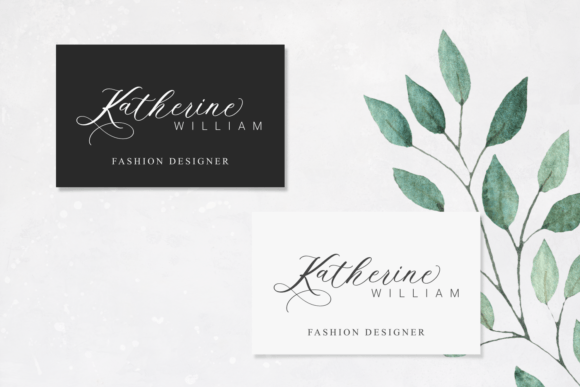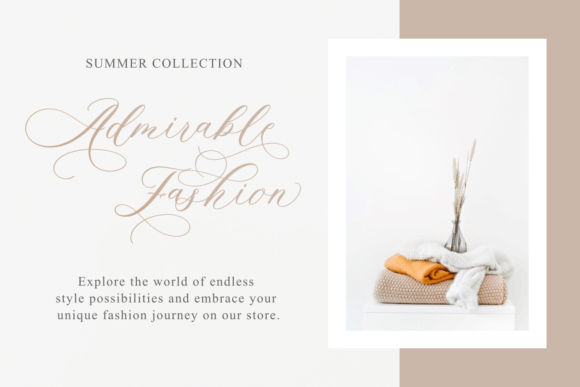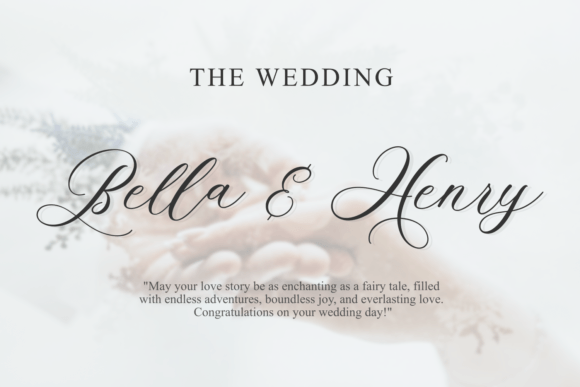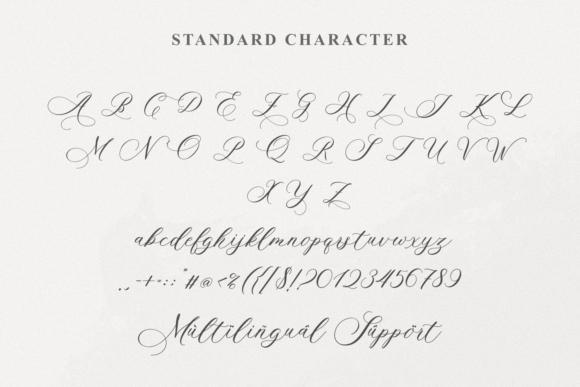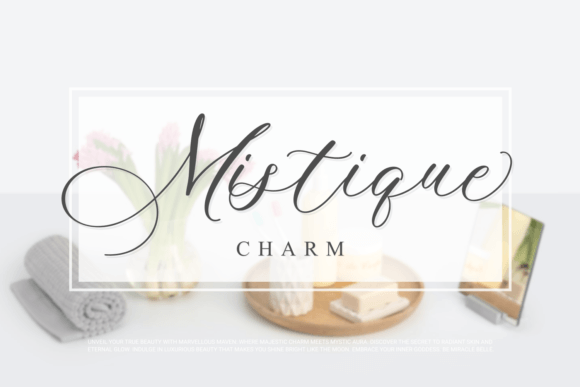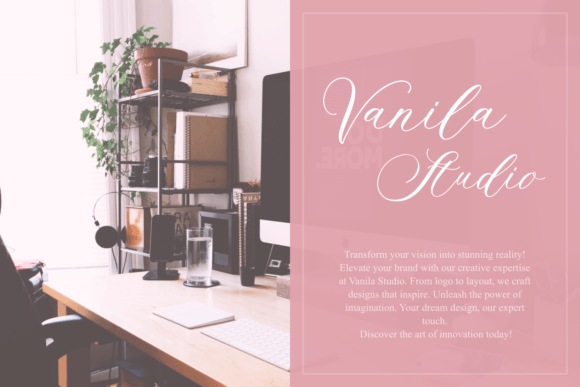
Discover the Elegance of Farah Font: A Perfect Blend of Simplicity and Sophistication
In the world of typography, fonts play a crucial role in conveying messages, expressing emotions, and creating a lasting impression. For designers and crafters, finding the right font can be a daunting task, especially when it comes to balancing elegance and simplicity. This is where Farah Font comes into play, a handcrafted gem that combines smooth, curved lines with a simple yet elegant appearance, making it perfect for various design purposes.
The Beauty of Simplicity
Farah Font is a masterclass in minimalism, radiating beauty in its purity without excessive ornaments. The font’s clean and smooth lines make it easy to read, while its elegant curves add a touch of sophistication. This subtle balance of simplicity and elegance makes Farah Font an excellent choice for designers and crafters looking for a font that can convey their message with clarity and style.
One of the standout features of Farah Font is its versatility. Whether you’re designing a prominent title, a message that requires a gentle touch, or a logo that needs to make a statement, Farah Font is up to the task. Its adaptability makes it suitable for a wide range of design purposes, from branding and advertising to packaging and digital media.
Handcrafted with Love
Farah Font is a handcrafted font, which means that every curve, every line, and every detail has been carefully crafted with love and attention. This level of care and dedication is evident in the font’s smooth, flowing lines and elegant appearance. When you use Farah Font, you’re not just using a font – you’re adding a personal touch to your design.
For designers and crafters, finding a font that can elevate their work without overpowering it can be a challenge. Farah Font is the perfect solution. Its elegant simplicity makes it easy to pair with other design elements, while its unique character ensures that your design stands out from the crowd.
Key Features of Farah Font
- Elegant Simplicity: Farah Font combines smooth, curved lines with a simple yet elegant appearance.
- Easy to Read: The font’s clean lines and flowing curves make it easy to read, even at small sizes.
- Versatile: Farah Font is suitable for a wide range of design purposes, from branding and advertising to packaging and digital media.
- Handcrafted: Every detail of Farah Font has been carefully crafted with love and attention.
- Unique Character: Farah Font’s elegant curves and smooth lines give it a unique character that sets it apart from other fonts.
Tips for Using Farah Font
To get the most out of Farah Font, here are a few tips:
- Pair with Bold Colors: Farah Font looks stunning when paired with bold colors. Try pairing it with a bright color to create a striking contrast.
- Use for Headings: Farah Font is perfect for headings and titles. Its elegant simplicity makes it easy to read, even at large sizes.
- Add a Personal Touch: Farah Font’s handcrafted nature makes it perfect for adding a personal touch to your design.
Farah Font is a true gem in the world of typography. Its elegant simplicity, smooth curves, and handcrafted nature make it a perfect choice for designers and crafters looking for a font that can elevate their work. Whether you’re designing a logo, a brochure, or a website, Farah Font is sure to impress. So why not give it a try and discover the elegance of Farah Font for yourself?